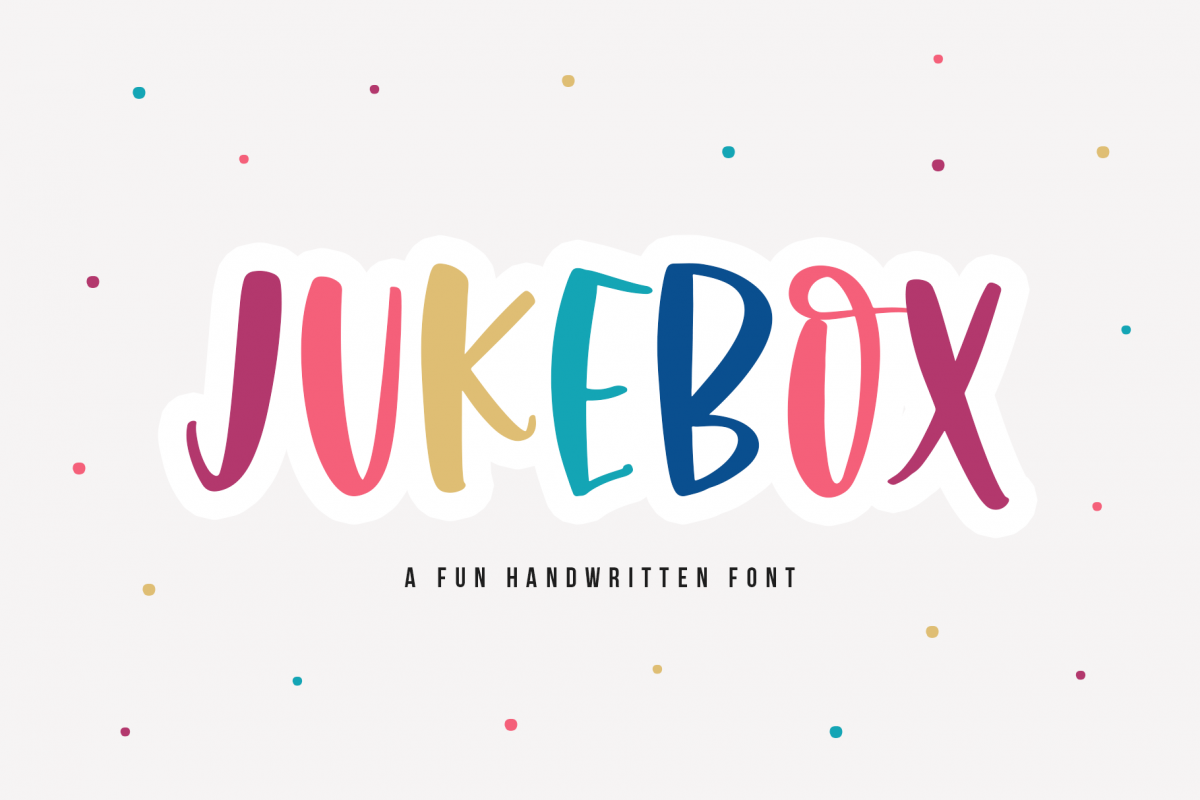
Jukebox - A Fun Handwritten Font
Jukebox
Jukebox is a quirky handwritten font!
This is an all caps font - with ligatures for oo & ss
Most accent characters included.